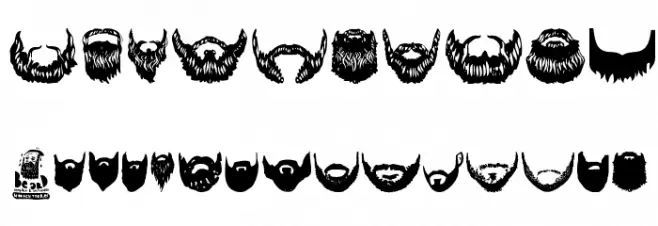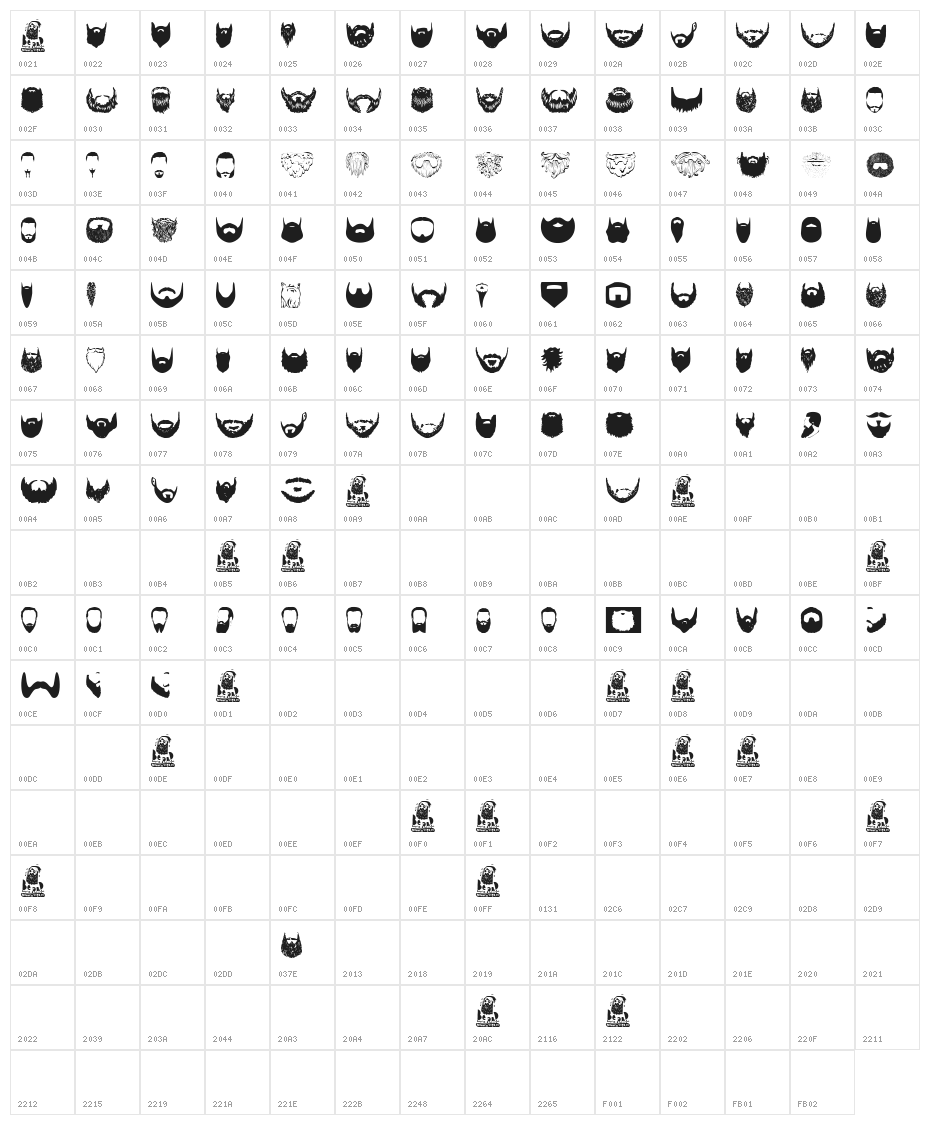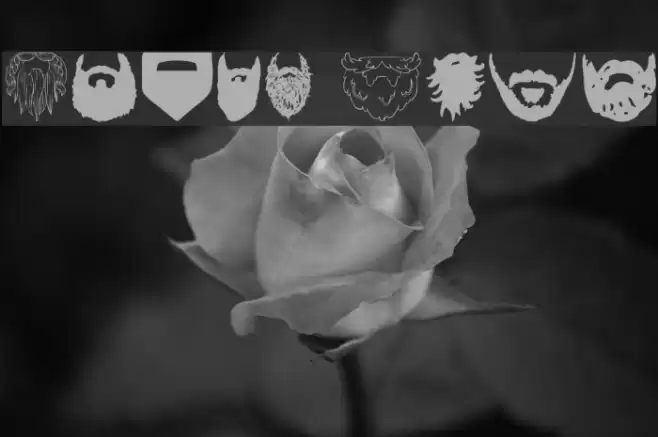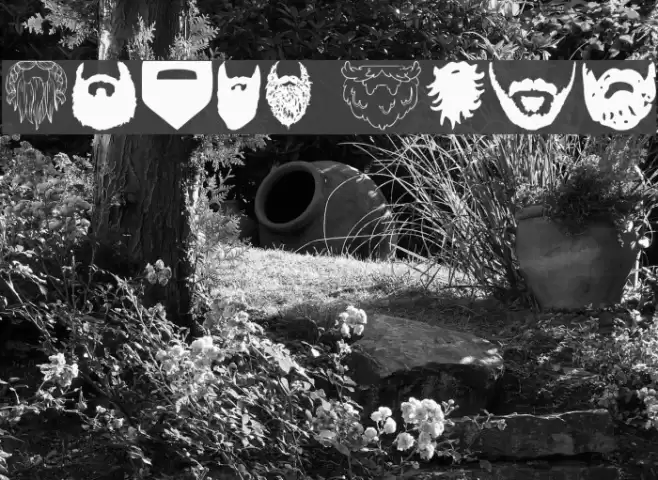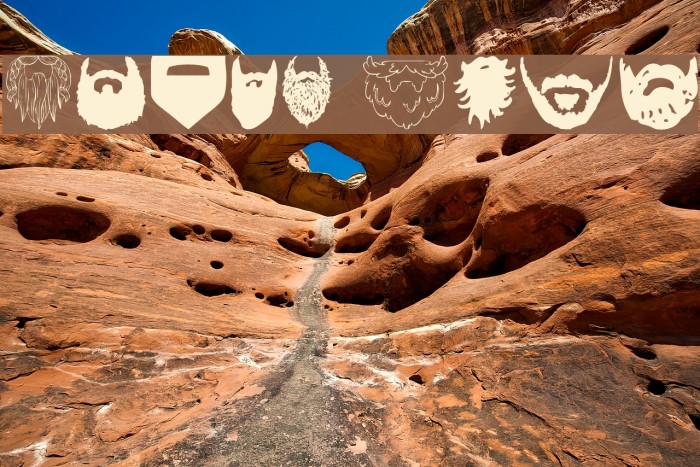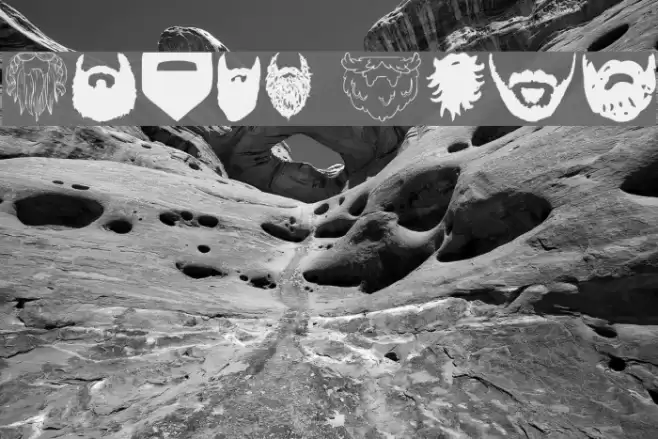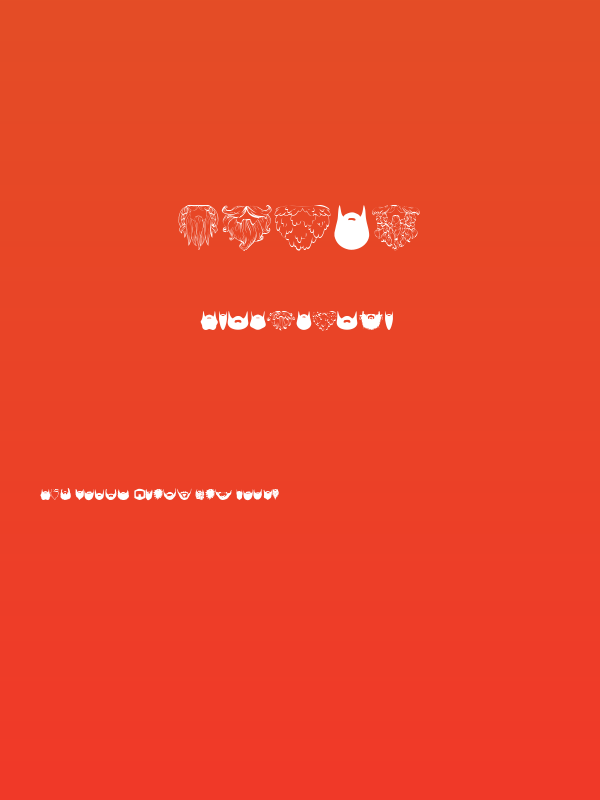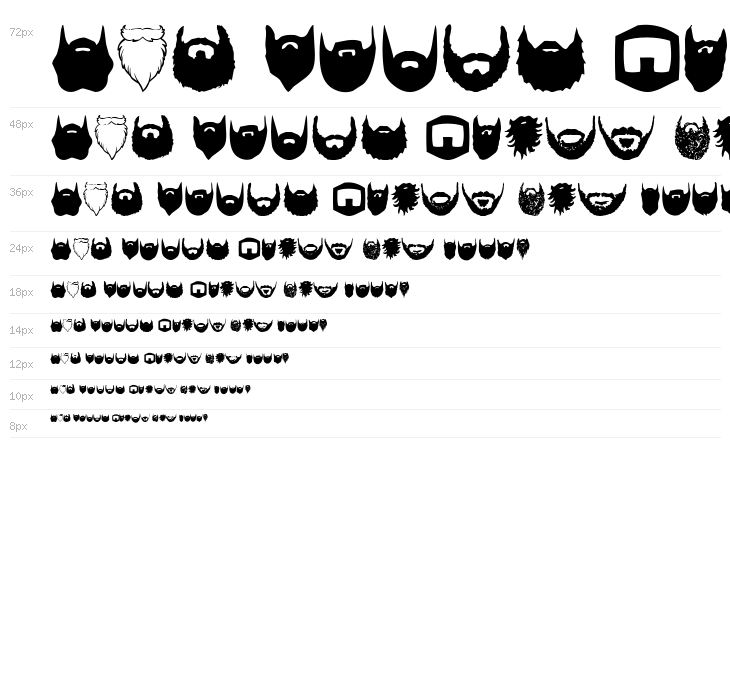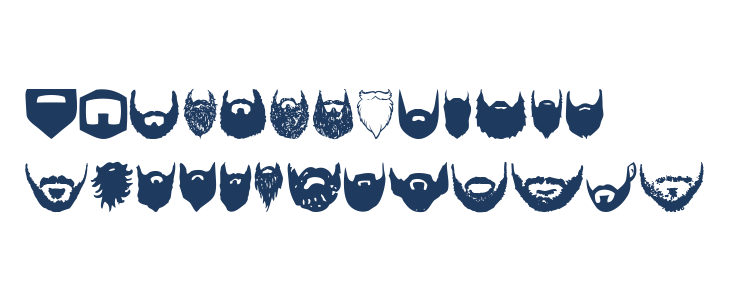
Beard Font
Beard Description
A decorative collection of various beard silhouettes and illustrations, each representing different beard styles with both filled and outlined designs, ranging from simple geometric shapes to intricate, textured forms.
| Overall Style | Decorative, Playful, Thematic |
| Use Case | Logos, Icons, Display text, Themed graphics |
| Proposed Projects | Posters, novelty t-shirts, barbershop branding, event flyers, themed party invitations, icon sets. |